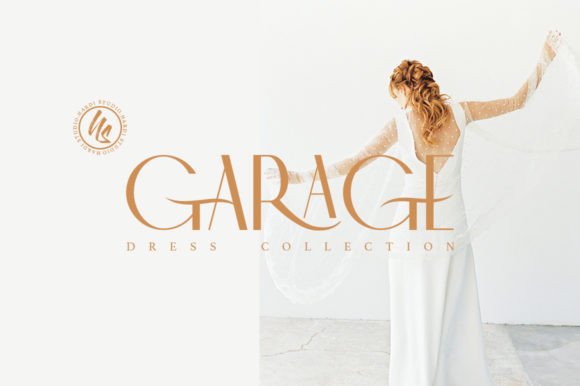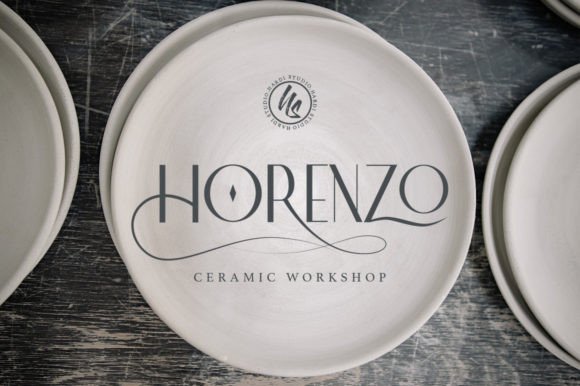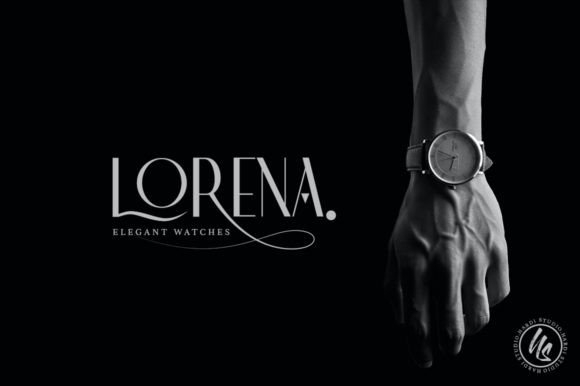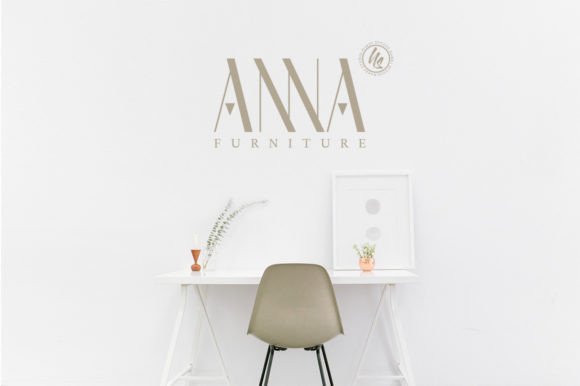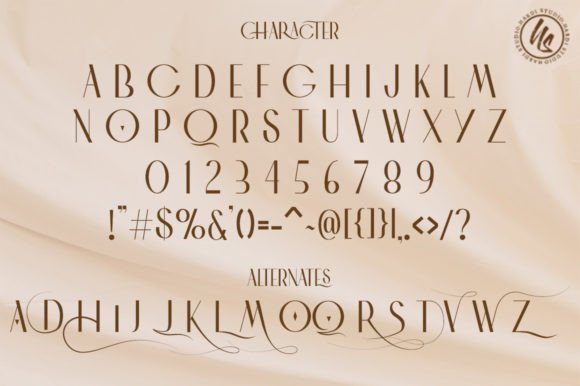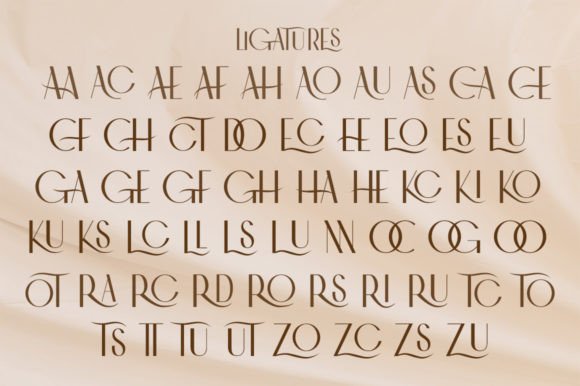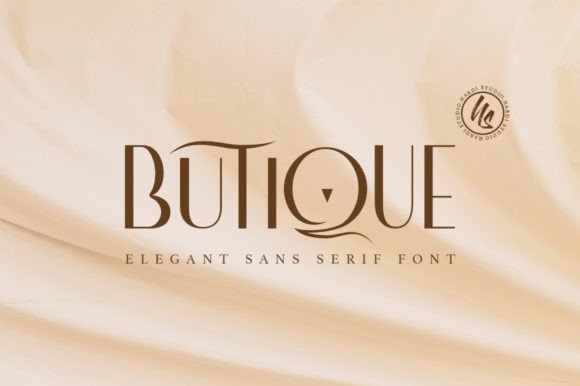
The Ultimate Serif Font for Creatives: A Deep Dive into Butique Font
I’ll never forget the time I was working on a branding project for a boutique fashion label. My client was specific about wanting a font that exuded elegance, sophistication, and a touch of playfulness. I scoured the internet, tried out countless fonts, but nothing seemed to fit the bill. That was until I stumbled upon Butique Font. It was love at first sight! 💕
In this article, I’ll share my experience with Butique Font, its features, and how you can make the most of it in your designs. Whether you’re a designer, crafter, or creative hobbyist, this font is sure to become a staple in your collection.
An Honest Review of Butique Font
What I Love About Butique Font ✨
- ✅ Elegant serif design with a touch of sophistication
- 🎨 Highly versatile and adaptable to various design styles
- 🔍 Extensive character set, including OpenType features and glyphs
While Butique Font is an amazing addition to any design project, there are a few things to keep in mind:
- 🤔 Some users may find the font a bit too ornate for certain design applications
- ⚠️ Limited availability of certain language scripts
- Experiment with OpenType features, such as ligatures and stylistic alternates, to add an extra touch to your design
The Backstory of Butique Font
Butique Font was designed by a team of typographers who wanted to create a font that embodied the essence of luxury and sophistication. Inspired by classic serif fonts, they crafted a unique design that’s both elegant and versatile. Whether you’re designing for fashion, beauty, or lifestyle brands, Butique Font is sure to impress.
Q: Is Butique Font suitable for body text?
A: While Butique Font is an elegant serif font, it’s best suited for headlines and titles. For body text, you may want to consider a more readable font.